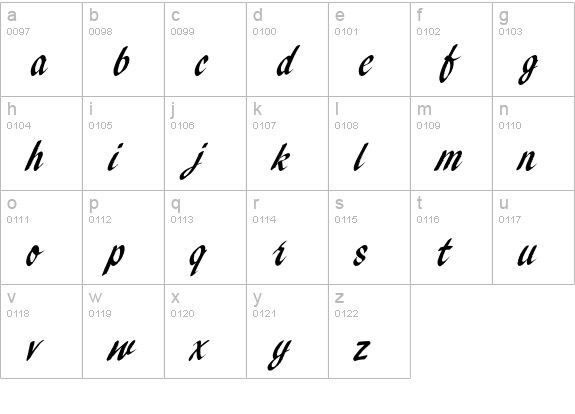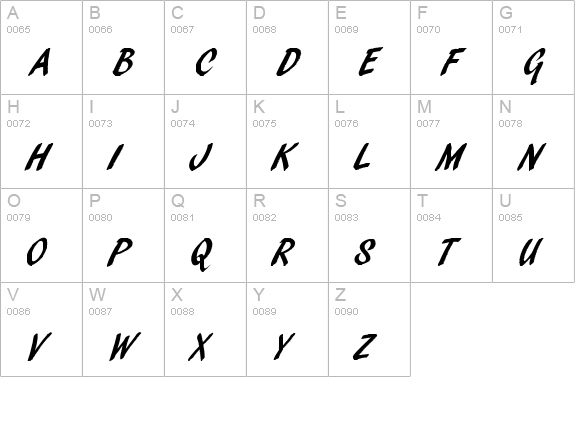
PendryScriptEF-Alternates Font Details
Introducing PendryScriptEF-Alternates Font, a stunningly versatile typeface that effortlessly combines elegance and playfulness. This font is designed to make a statement with its exquisite script style and unique alternates, offering a myriad of options to create captivating designs. PendryScriptEF-Alternates Font takes inspiration from classic calligraphy, resulting in graceful letterforms that flow seamlessly across the page. Its delicate curves and intricate details lend a touch of sophistication to any project, whether it be wedding invitations, branding materials, or editorial designs. What sets PendryScriptEF-Alternates Font apart is its collection of meticulously crafted alternates, allowing you to customize your designs with ease. These alternate characters add a sense of personalization and artistic flair, giving you the freedom to create truly one-of-a-kind compositions. One of the standout features of PendryScriptEF-Alternates Font is that it is available for free download at FontsMarket.com. This means that you can freely explore the endless creative possibilities this font offers, without any limitations. Whether you're a professional designer or an aspiring artist, this font is a valuable addition to your typographic arsenal. Featuring a wide range of characters, including uppercase, lowercase, numerals, punctuation, and multilingual support, PendryScriptEF-Alternates Font ensures that your designs will be flawlessly executed, regardless of the language or context. With its elegant and versatile nature, PendryScriptEF-Alternates Font is bound to elevate your design projects to new heights. So don't miss out on this incredible opportunity to download this font for free at FontsMarket.com and unlock a world of creative possibilities. Let PendryScriptEF-Alternates Font be your trusted companion in bringing your artistic vision to life.